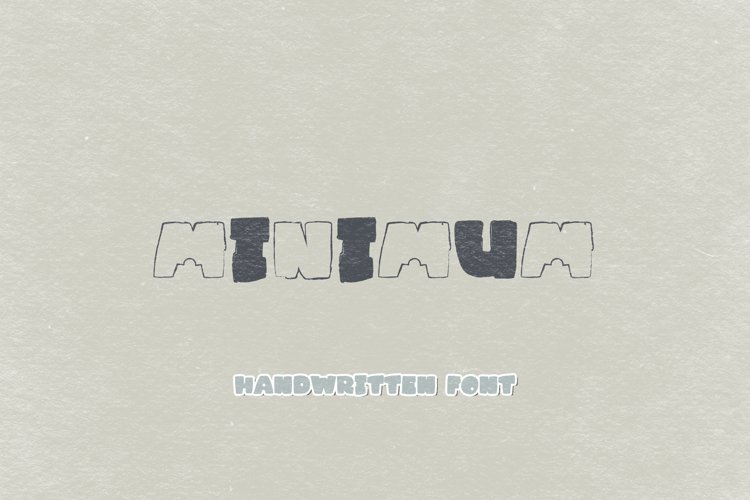
The minimum is a sketchy & cute handwritten font. Get inspired by its incredibly pencilly feel. Use this font to turn any design project into a standout!
This is an ALL CAPS font. It offers support for all characters of the English language. Numbers and standard punctuation glyphs are included.
Minimum is perfectly suited for Quotes, Branding, Logos, Greeting Cards, Invitations, Stationery Design, Children's designs, T-shirts, Packaging designs, Poster, Typographic designs, Papercrafts, Digital crafts, and so much more!